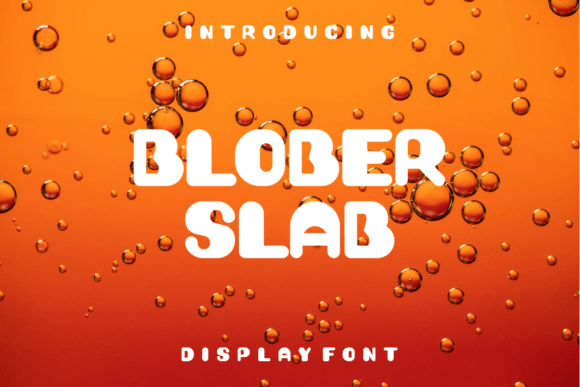
Introducing Blober Slab Font, a striking display font family designed to leave a lasting impression. Step into the world of modern typography with Blober Slab, where boldness and authenticity intertwine to create a truly captivating visual experience.
Welcome to the Future of Typography
Blober Slab Font is not just a collection of letters; it's an artistic masterpiece crafted for a bold and impactful digital presence. Whether you're a designer looking to elevate your work or a tech enthusiast seeking a unique identity, Blober Slab is your font of choice.
Bold Statements, Unforgettable Impressions
In a world saturated with visual noise, Blober Slab cuts through the clutter with its commanding presence. Its thick, unwavering strokes exude strength and confidence, ensuring your message stands out from the crowd. Be it a striking logo, a captivating social media post, or an eye-catching website, Blober Slab guarantees an unforgettable impression.
Tech-Savvy Elegance: A Perfect Match
The seamless fusion of technology and aesthetics makes Blober Slab the perfect choice for tech-savvy individuals and businesses. Its clean lines and geometric precision resonate with the modern, digital landscape, making it an ideal font for startups, tech blogs, and any platform where innovation thrives.
Endless Creative Possibilities
Blober Slab is a versatile font family that adapts effortlessly to diverse branding projects. Its bold character shines in logos, t-shirt designs, and esports branding, adding a touch of individuality that sets you apart. Unleash your creativity and explore the boundless possibilities that Blober Slab has to offer.
The Power of Visual Storytelling
With Blober Slab as your narrative companion, your designs will transcend mere words and transform into captivating stories. Let the font's boldness carry your message with impact and authority. Create visuals that speak volumes, leaving an imprint on your audience that lasts long after the screen fades.